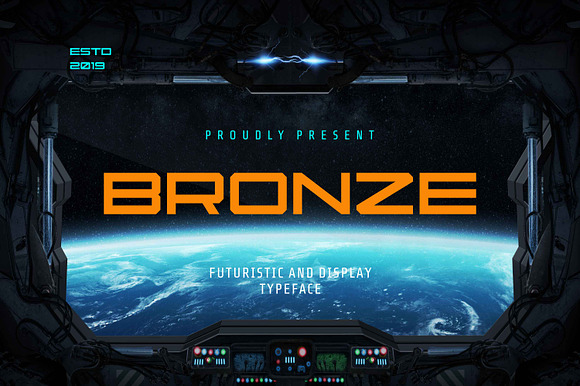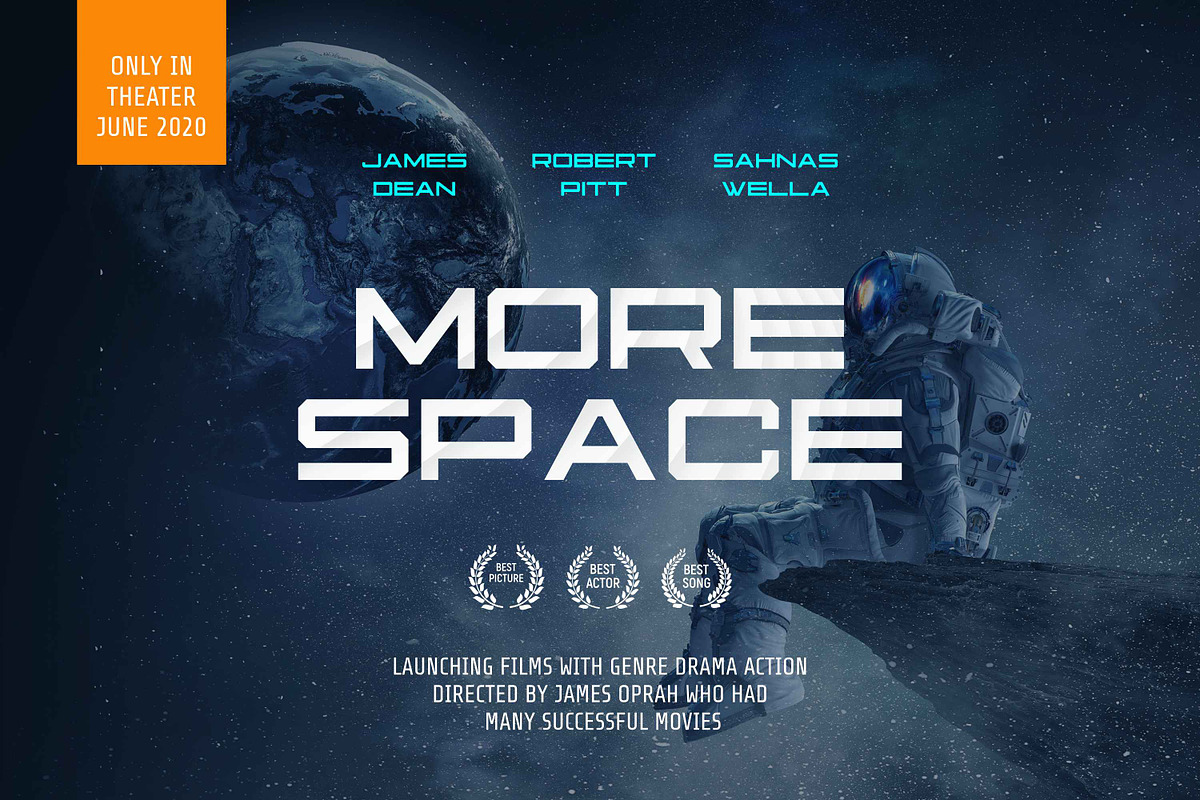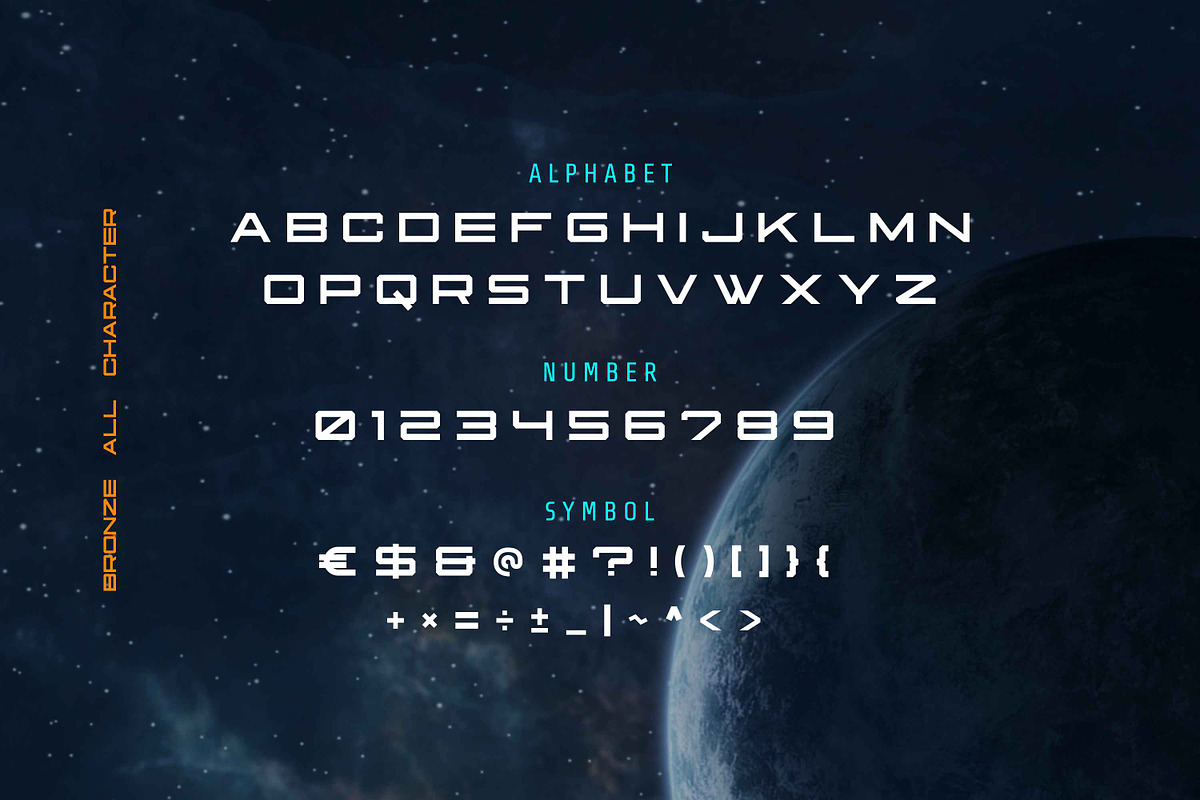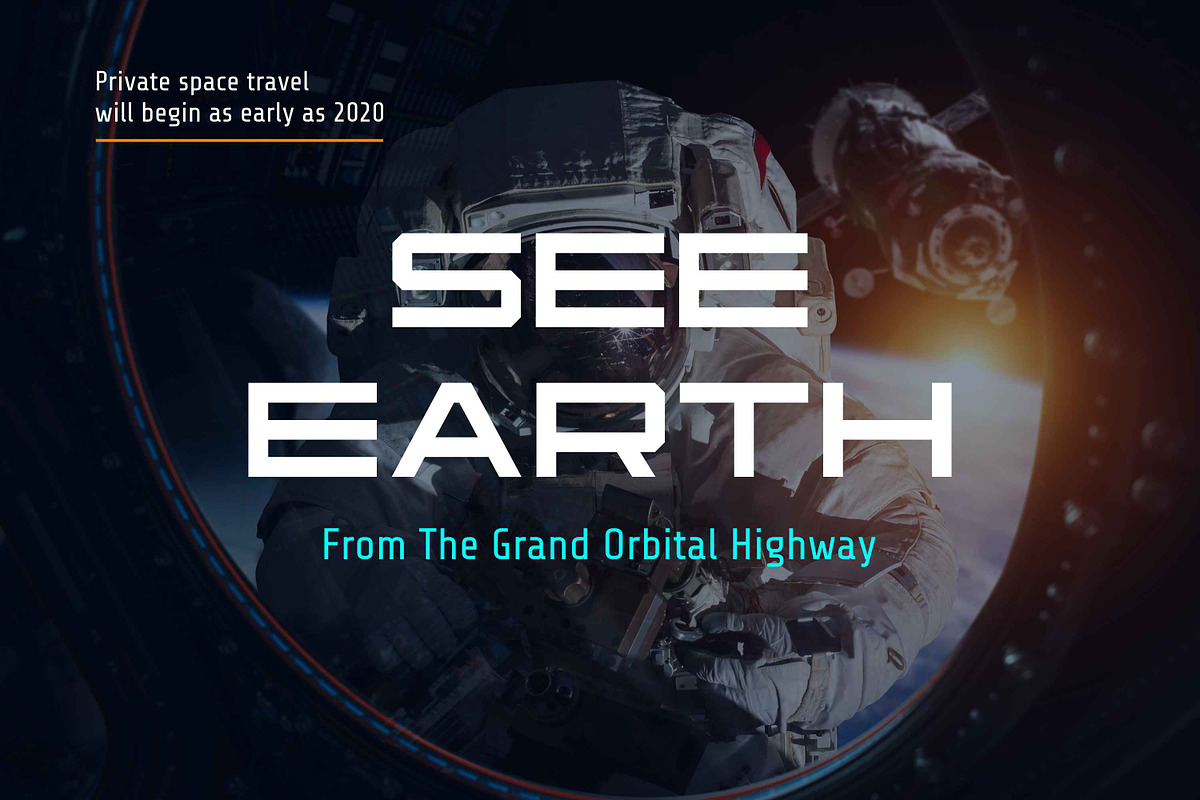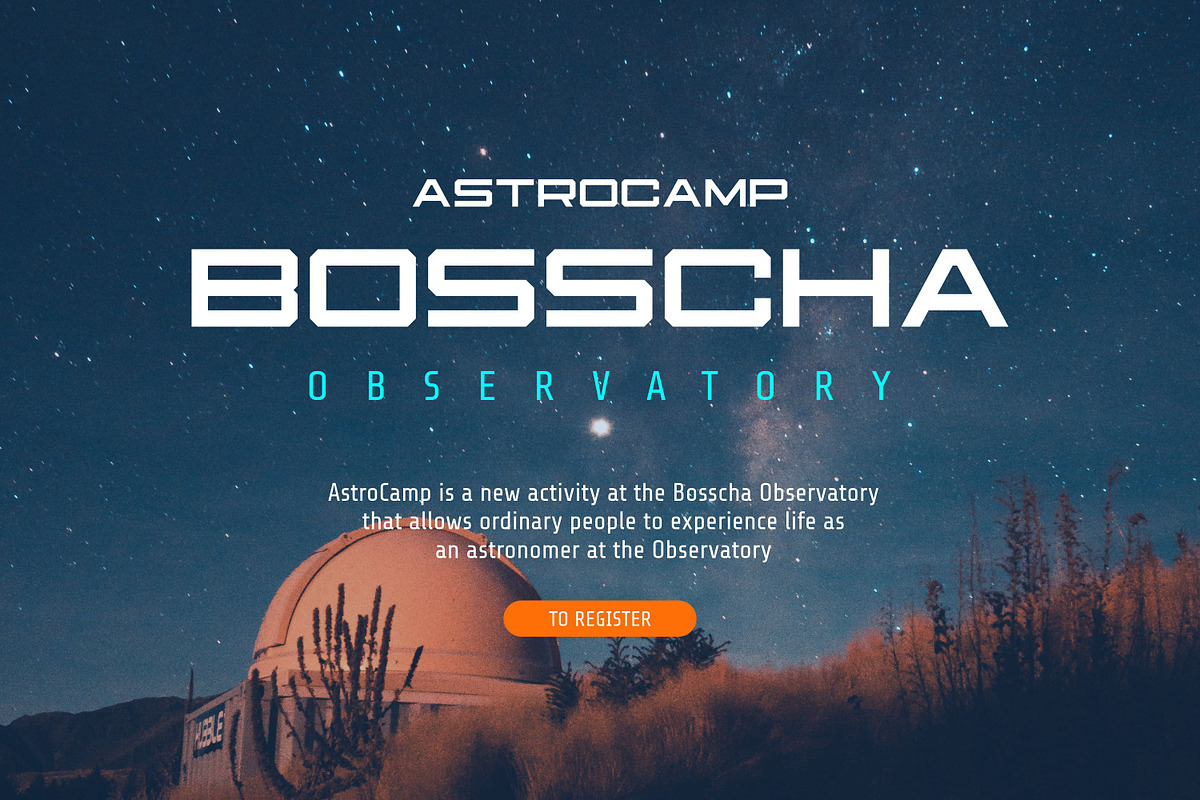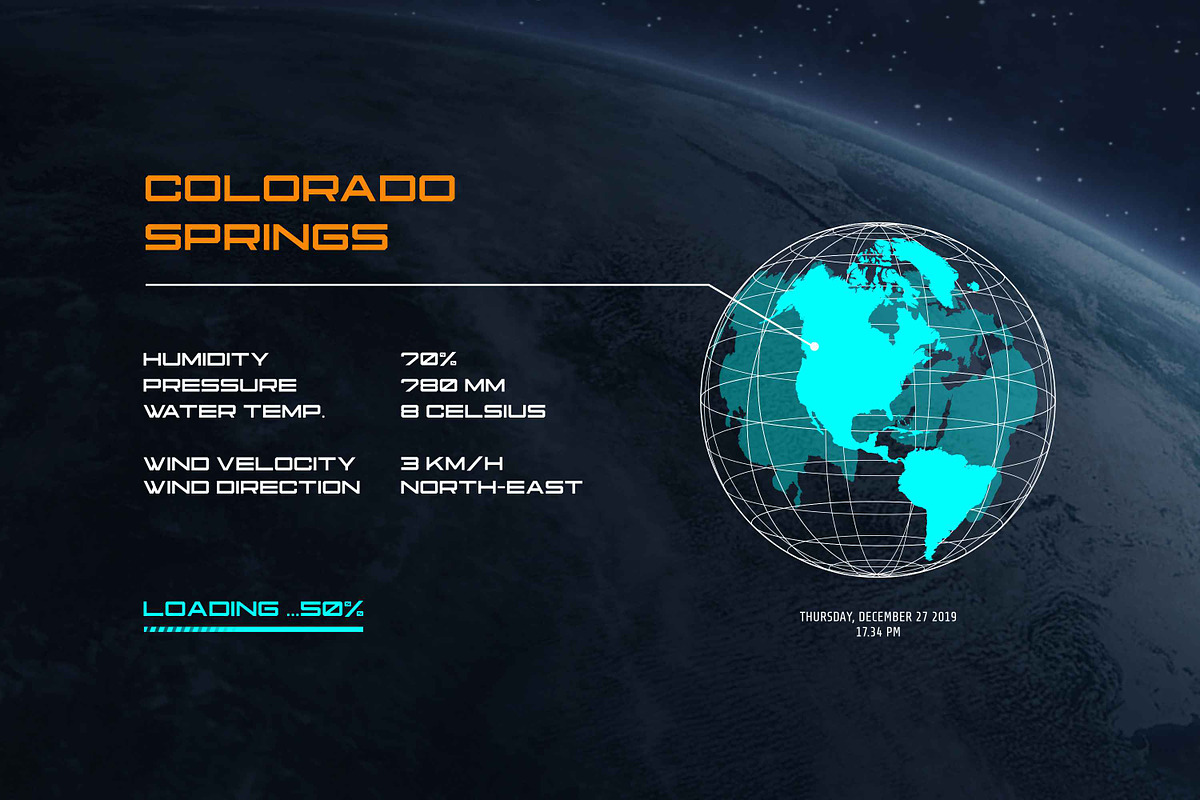
Bronze - Modern and Futuristic Font
Fype Co. Present Bronze Futuristic and Display Font. With Bronze can make your design look modern and futuristic. This fonts suitable for logotype, packaging, branding, header, film poster, and more design about space, high tech, and futuristic feel.